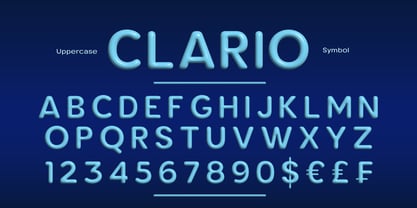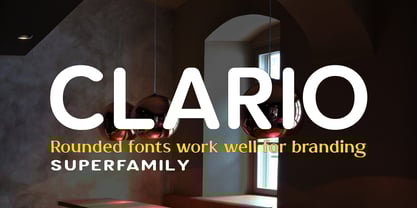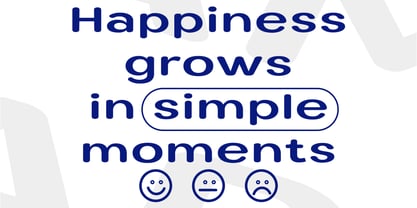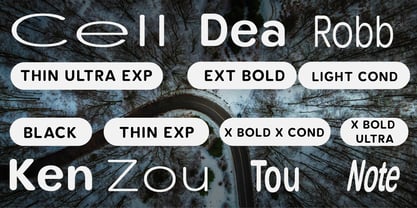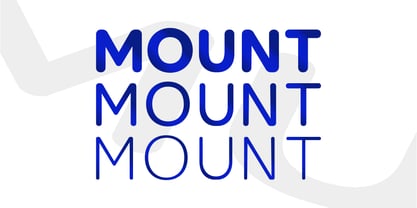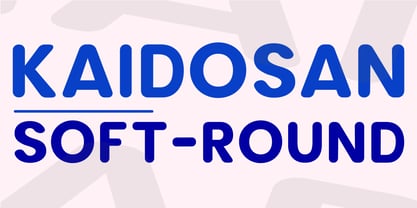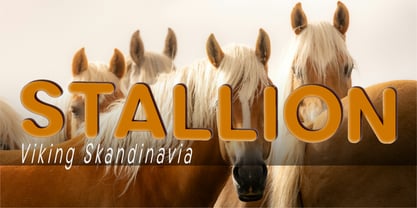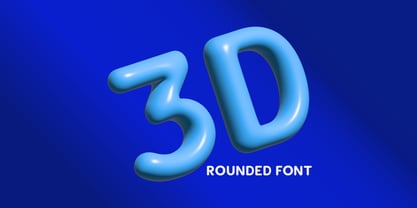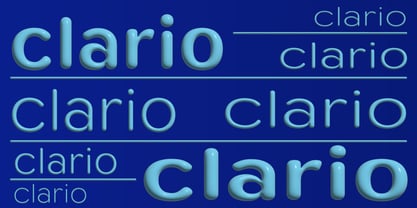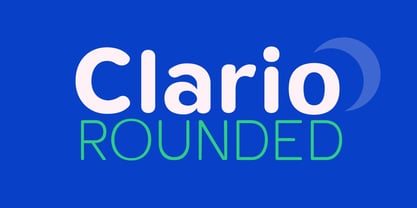
Clario
by Kaidosan
The Clario Font Family was designed by Muhammad Ansari and published by Kaidosan. Clario contains 146 styles and family package options. More about this family
CLARIO is an innovative and highly comprehensive rounded superfamily, delivering a consistent and warm character across its entire spectrum of weights and widths. With 146 styles encompassing Normal, Condensed, and Expanded fonts, along with a weight range from Thin to Black, CLARIO offers an unparalleled typographic system for building a truly cohesive, approachable, and dynamic visual identity. Built with high precision, every character across these three width variants (Normal, Condensed, Expanded) offers exceptional readability in any context—from bold Expanded headlines and space-saving Condensed text for UI, to comfortable Regular body text. The subtle, rounded finishes on every corner eliminate harshness, creating a modern persona that is warm, familiar, and exceptionally flexible. Key Features & Advantages: Complete Superfamily System: 146 styles consisting of Normal, Condensed, and Expanded sets, each with 8 weights (Thin to Black) and their matching Italics, providing absolute creative control. Rounded Consistency: The "tactile softness" philosophy is applied uniformly across the entire glyph set and all three width variants, maintaining the same coherent personality in every application. Extreme Flexibility: The extensive combination of widths and weights makes it the perfect solution for complex branding, dense editorial design, user interfaces (UI/UX), and scalable design systems. Comprehensive Character Set: Supports over 200+ Latin-based languages (including Extended Latin) with varied stylistic alternates, ligatures, and numerals in every style. Technical Reliability: Clean font files equipped with automatic hinting for sharp rendering on low-resolution screens. Ideal Applications: Systemic Branding & Visual Identity: Perfect for global brands requiring consistency across various media and constrained spaces (packaging, merchandise, applications). Editorial & Publishing Design: The Condensed variant is ideal for dense column layouts, while Expanded creates powerful visual statements for covers and posters. Digital Product & Interface: High clarity and width choices make it a versatile solution for mobile apps, data dashboards, and websites that prioritize information hierarchy and user experience.
Designers: Muhammad Ansari
Foundry: Kaidosan